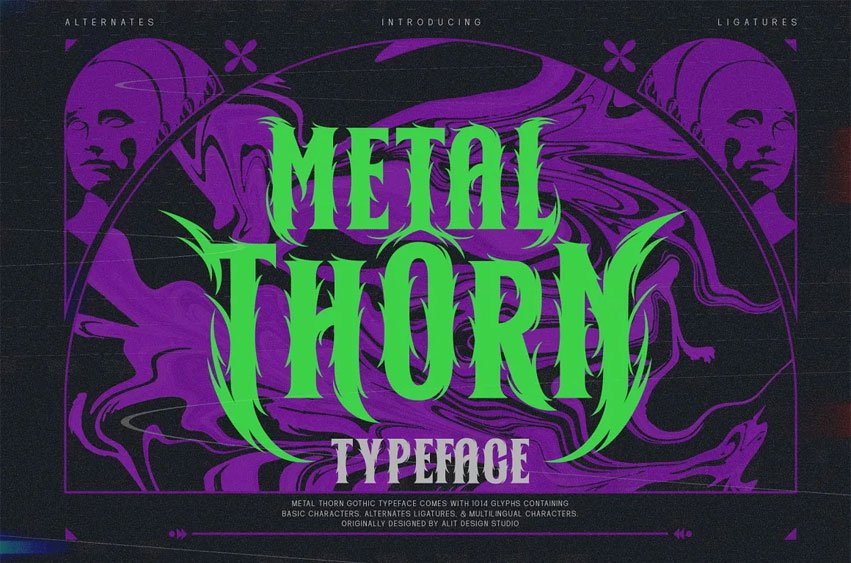
Metal Thorn Font is a gothic font that seamlessly blends the raw power of metal with the edgy intensity of thorns, all wrapped up in a cutting-edge cyber aesthetic. This font is a manifestation of metal brutalism, designed to make a bold statement with its fierce and avant-garde personality.
Whether you’re working on a poster, branding, digital art, or any other creative endeavor, Metal Thorn is your go-to choice for a font that demands attention. Elevate your designs with the raw energy of metal, the fierceness of thorns, and the modern sophistication of cyber aesthetics – all encapsulated in the captivating Metal Thorn font.